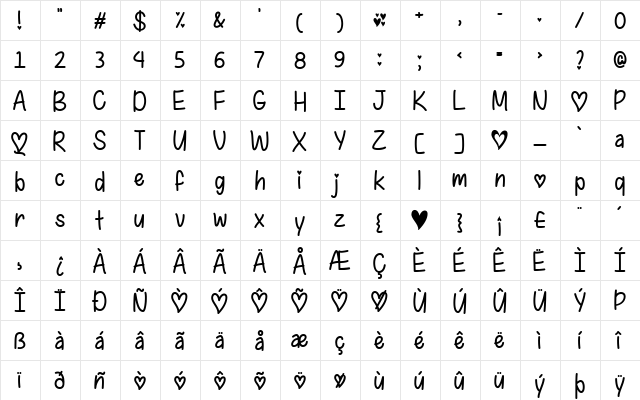
I Found My Valentine Regular
Design Context for I Found My Valentine Typeface
I Found My Valentine is a composed and adaptable typeface that performs quietly and consistently across a wide range of design contexts.